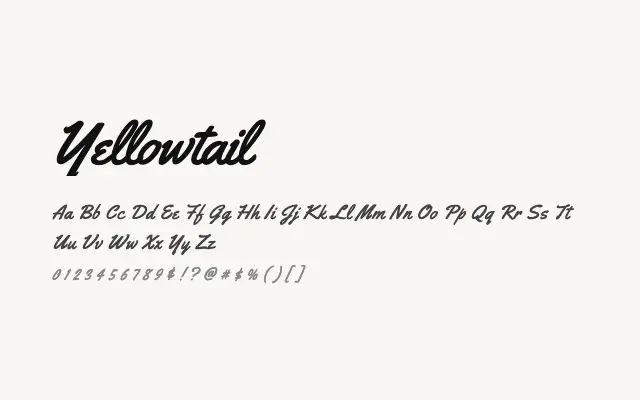
Yellowtail
An energetic brush script channelling mid-century American lettering traditions with confident, flowing strokes.
Yellowtail draws on the visual language of vintage sign painting and casual advertising lettering, giving it a warm, approachable quality with a retro edge. It works well in branding, packaging, and headline contexts where personality and period charm are priorities. Its single weight limits versatility, but within expressive display use it performs with considerable character.
A flowing, casual brush script with energetic, informal letterforms that evoke mid-century American sign painting and lettering. Strokes are confident and slightly irregular, reinforcing its hand-crafted feel.